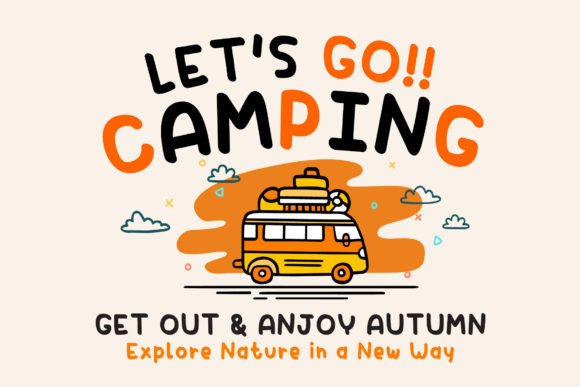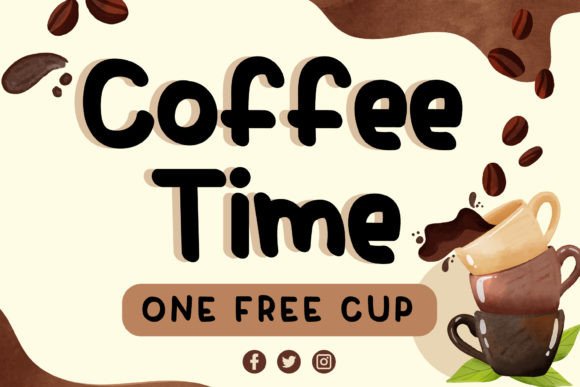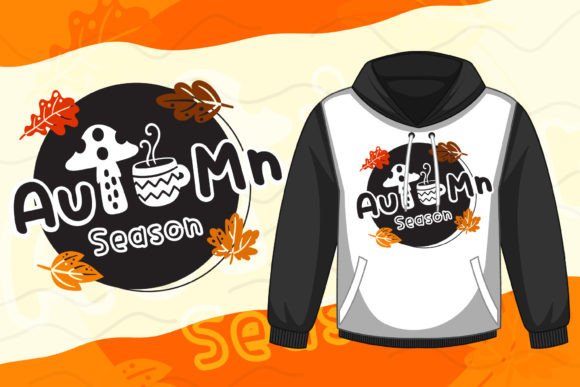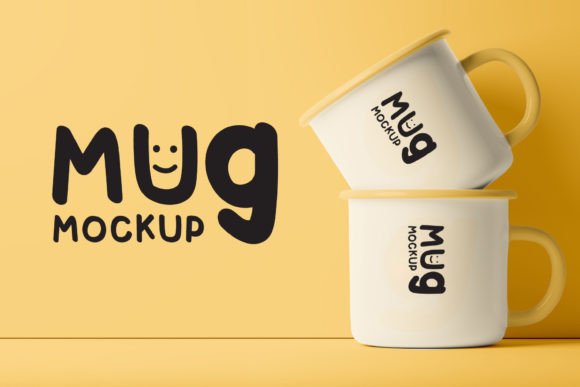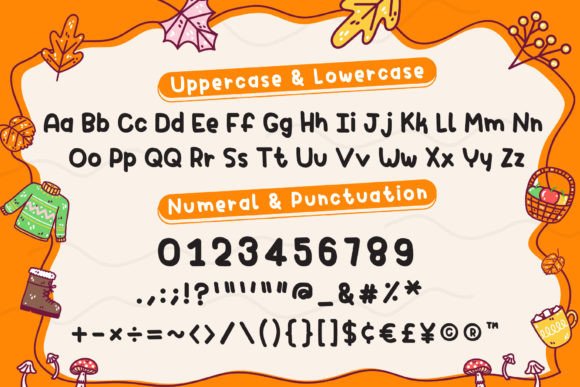
Welcome the Cozy Season with Hello Autumn Font
As the leaves begin to change and the weather cools down, it’s the perfect time to add a touch of warmth and coziness to your designs. Introducing Hello Autumn, a fun and adorable handwritten display font that’s sure to bring a smile to your face. With its playful and charming vibe, this lovely font is perfect for designers and crafters looking to add a seasonal twist to their projects.
The Perfect Font for Autumn-Inspired Designs
Hello Autumn is a handwritten display font that’s specifically designed to capture the essence of the fall season. Its unique and whimsical style is reminiscent of handwritten notes and letters, making it perfect for adding a personal touch to your designs. Whether you’re creating invitations, posters, or social media graphics, this font is sure to add a touch of warmth and coziness to your projects.
Key Features of Hello Autumn Font
- Handwritten Display Font: Hello Autumn is a handwritten display font that’s perfect for headlines, titles, and short text.
- Fun and Adorable: This font is designed to be fun and playful, making it perfect for autumn-inspired designs.
- Cute and Whimsical: The unique and whimsical style of Hello Autumn is sure to add a touch of charm to your designs.
- Easy to Read: Despite its playful style, Hello Autumn is easy to read and understand, making it perfect for use in a variety of designs.
Uses for Hello Autumn Font
Hello Autumn is a versatile font that can be used in a variety of designs, including:
- Autumn-themed Invitations: Use Hello Autumn to create adorable invitations for fall parties, harvest festivals, and other seasonal events.
- Social Media Graphics: Add a touch of warmth and coziness to your social media graphics with Hello Autumn.
- Posters and Flyers: Use Hello Autumn to create eye-catching posters and flyers for autumn-themed events and promotions.
- Crafting and Scrapbooking: Hello Autumn is perfect for crafters and scrapbookers looking to add a personal touch to their projects.
Why Choose Hello Autumn Font?
With so many fonts to choose from, why choose Hello Autumn? Here are just a few reasons why this font stands out:
- Unique and Playful Style: Hello Autumn has a unique and playful style that’s sure to add a touch of charm to your designs.
- Easily Readable: Despite its playful style, Hello Autumn is easy to read and understand, making it perfect for use in a variety of designs.
- Versatile: Hello Autumn can be used in a variety of designs, from invitations and social media graphics to posters and flyers.
Get Ready for Sweater Weather with Hello Autumn Font
As the weather cools down and the leaves begin to change, it’s the perfect time to add a touch of warmth and coziness to your designs. With Hello Autumn, you can create adorable and inviting designs that capture the essence of the fall season. So why wait? Download Hello Autumn font today and get ready to add a touch of charm to your designs.
Hello Autumn is a fun and adorable handwritten display font that’s perfect for designers and crafters looking to add a seasonal twist to their projects. With its unique and playful style, this lovely font is sure to bring a smile to your face and add a touch of warmth and coziness to your designs. So why wait? Download Hello Autumn font today and get ready to welcome the cozy season in style.